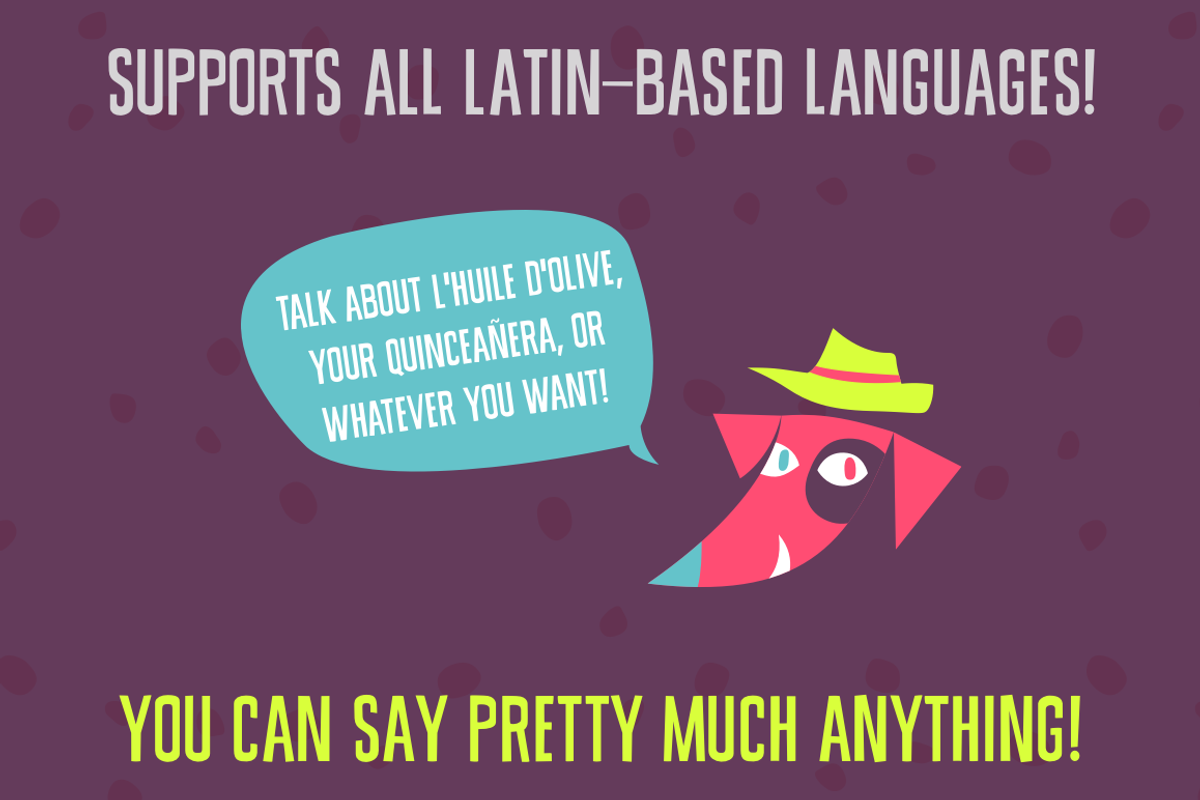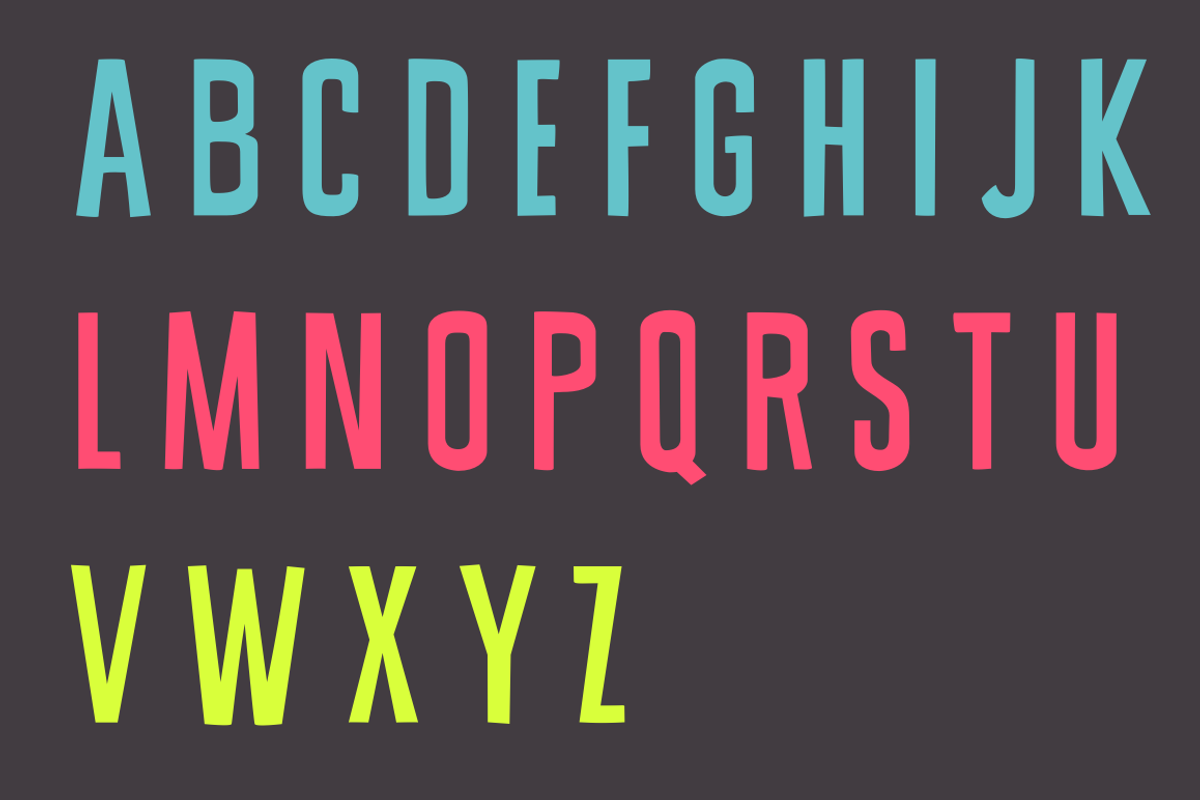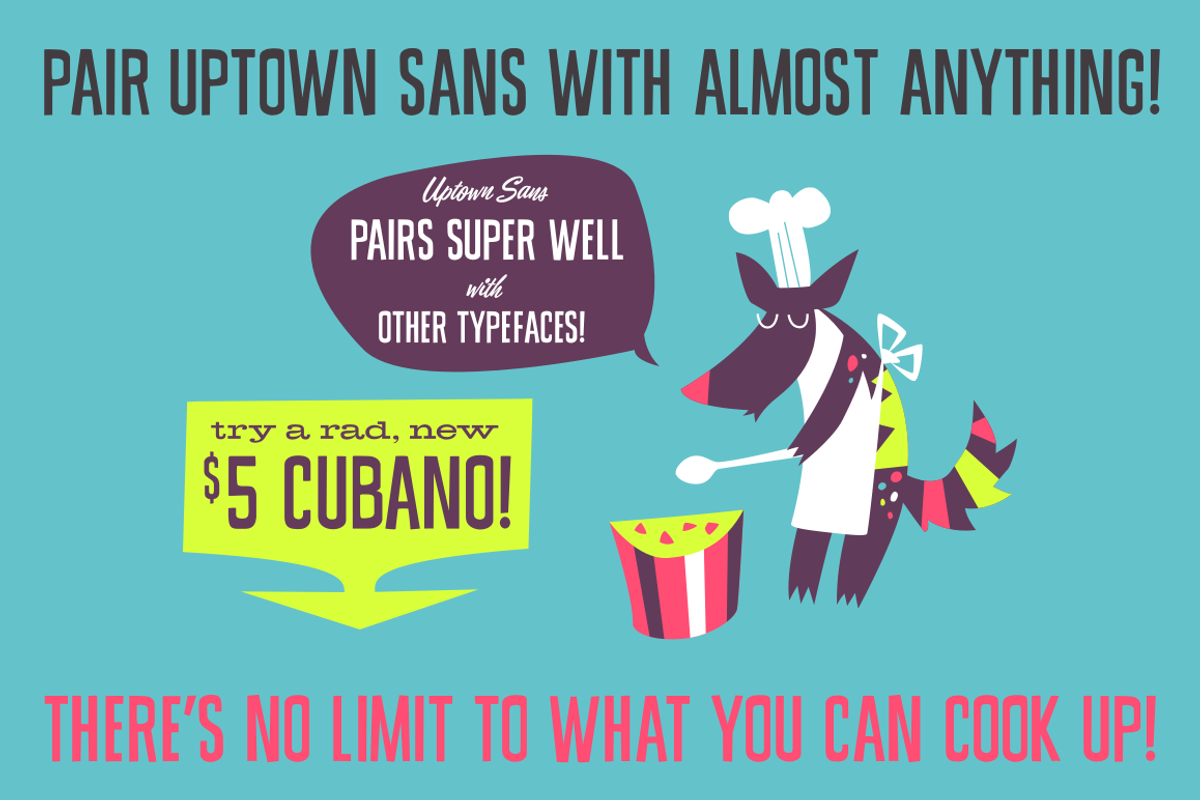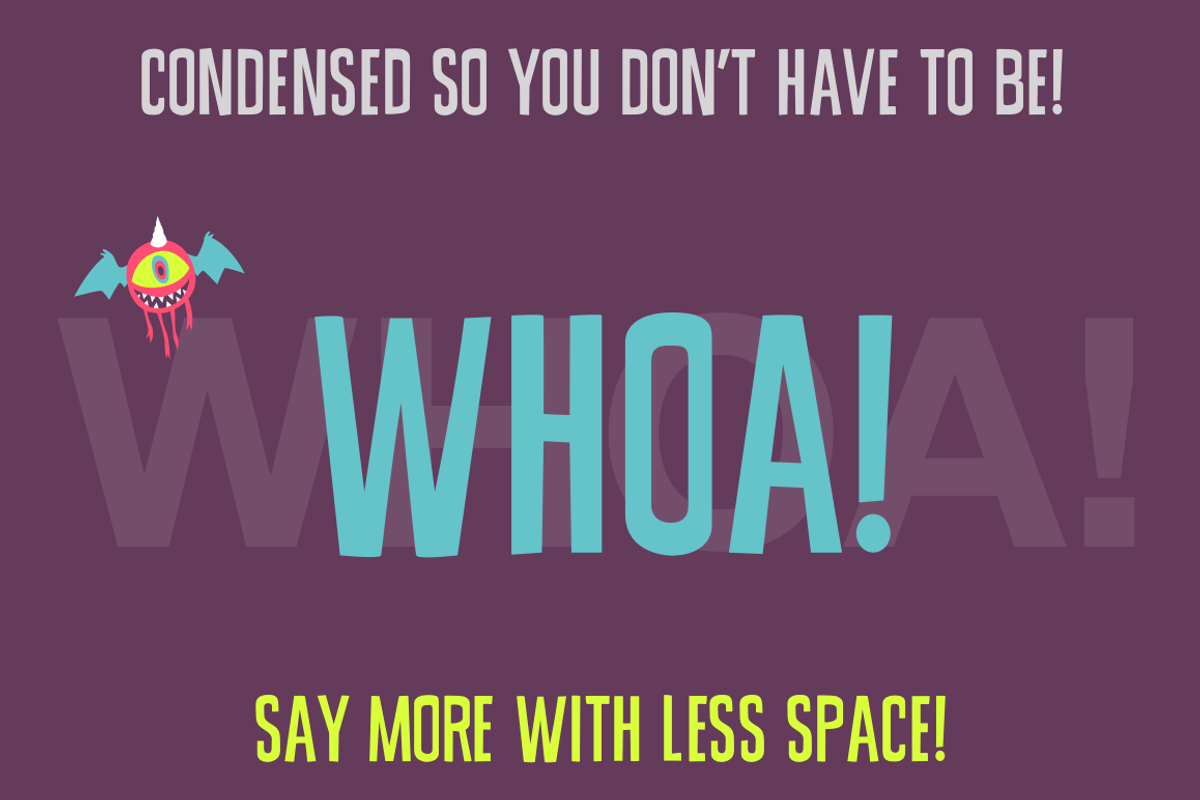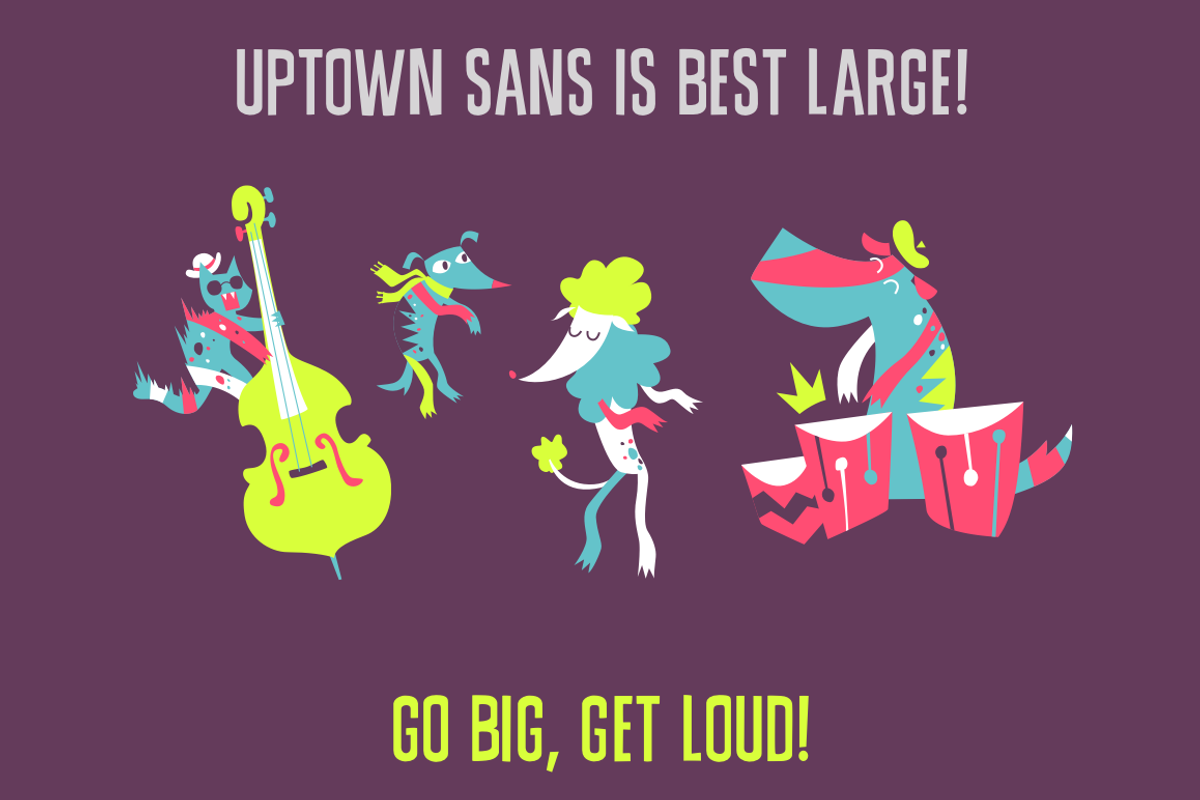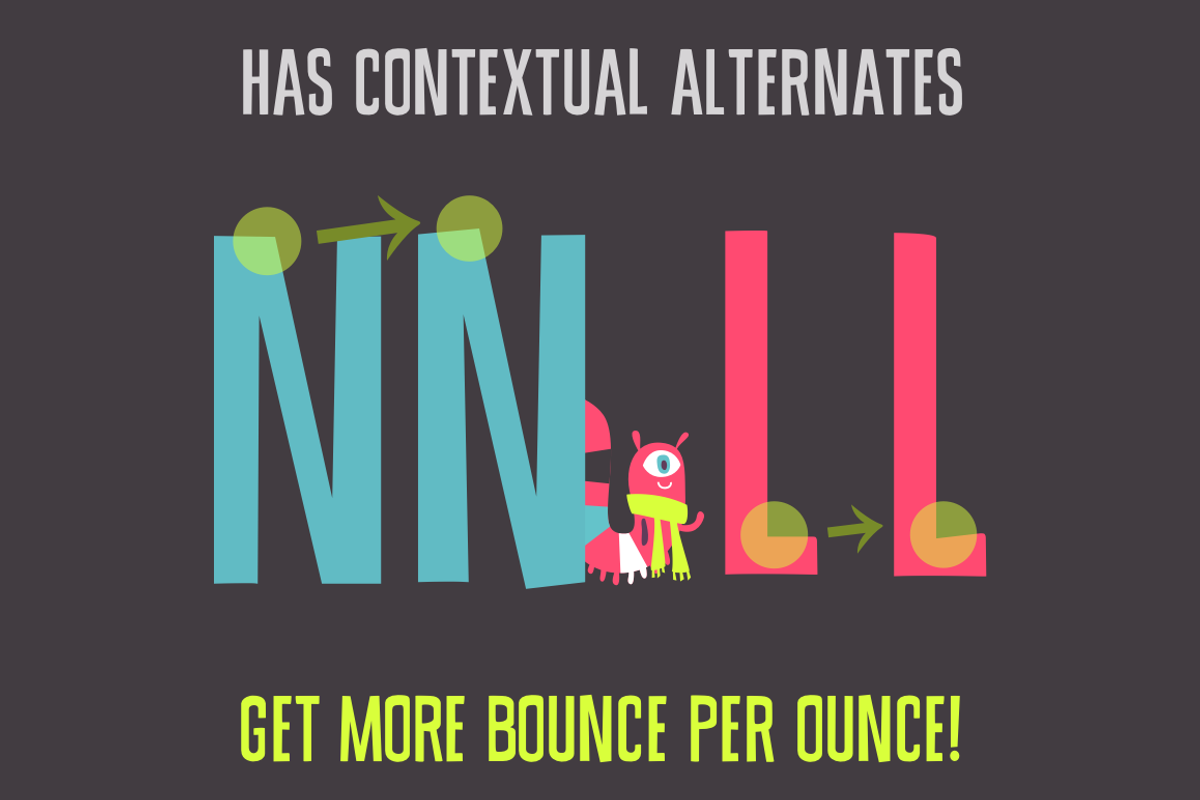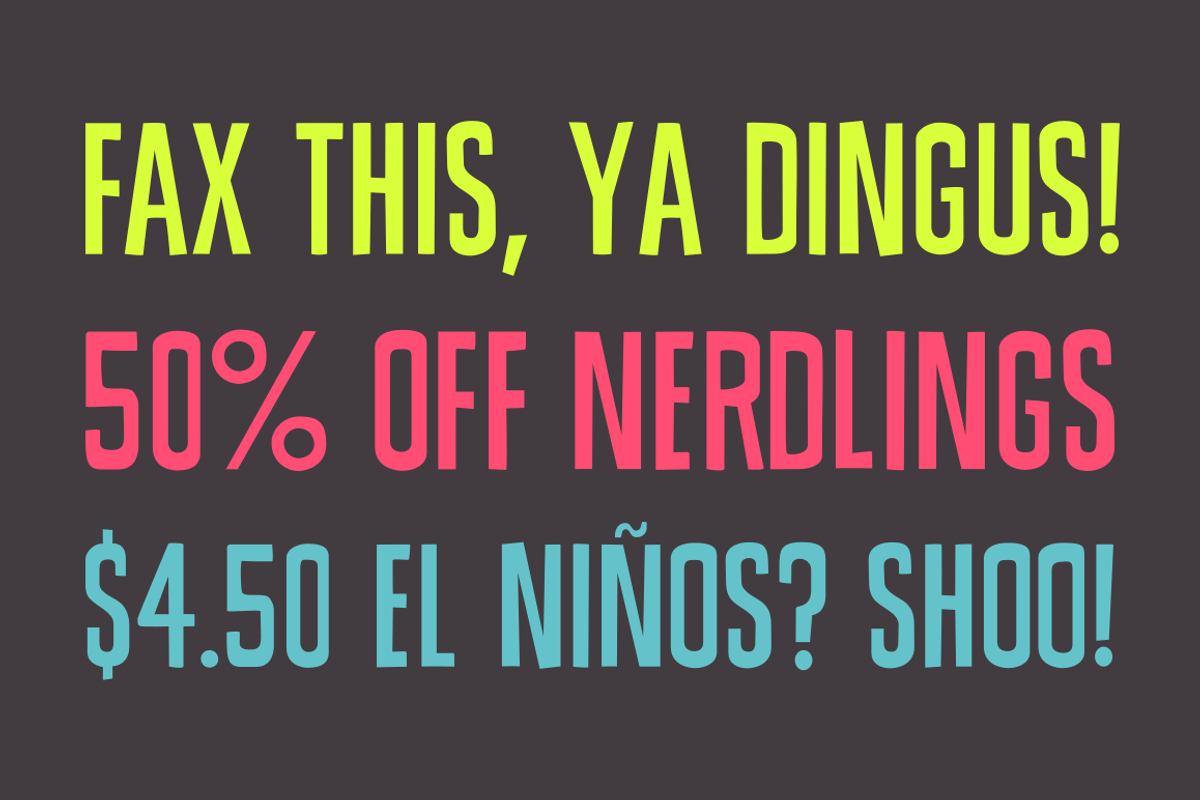
Uptown Sans Typeface
Uptown Sans Typeface by joshua.mauldin is a font selected for branding, posters, packaging, typography.
- It also comes with alternate characters, so you’re sure to get more bounce per ounce.
Why Uptown Sans Typeface is worth a look
Uptown Sans Typeface by joshua.mauldin fits naturally into Branding, posters, packaging, typography.